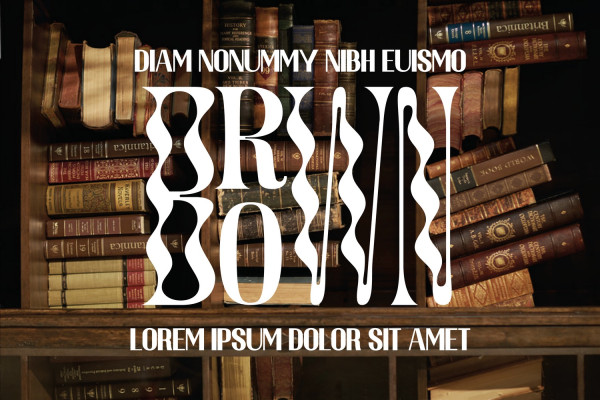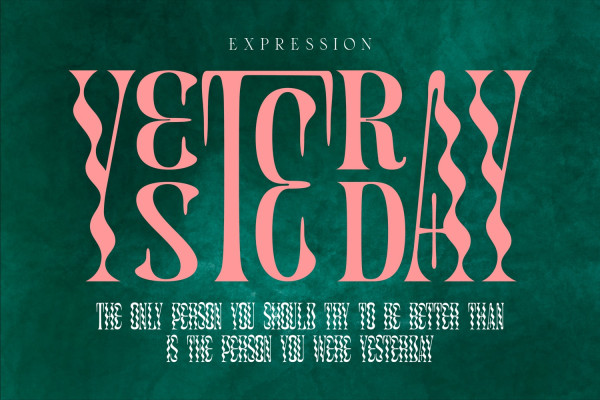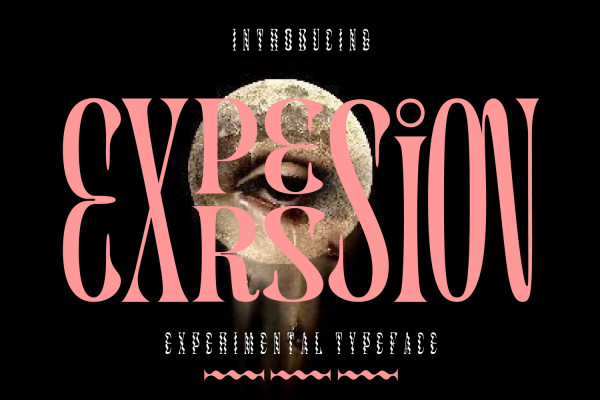
Expression Font
Expression Font,is a condensed font, wavy display face. it was designed with a synthesis of the future and the past. While it carries sharper and futuristic lines than the future, it also incorporates the organic structure of the past. It’s suitable for the design of covers and posters, it will look aesthetically pleasing in packaging design. It can be used in the design of titles and disclaimers. Condensed styles are preferably used in large size.
Expression was built with OpenType features and includes 100 ligatures, alternate, numbers, punctuation, and it also supports other languages.